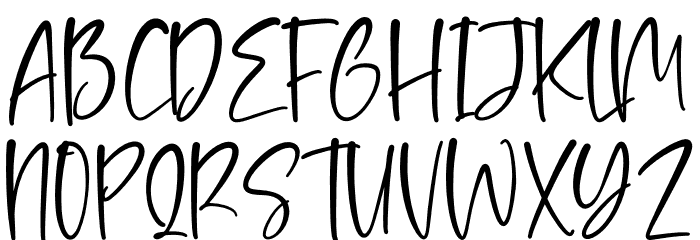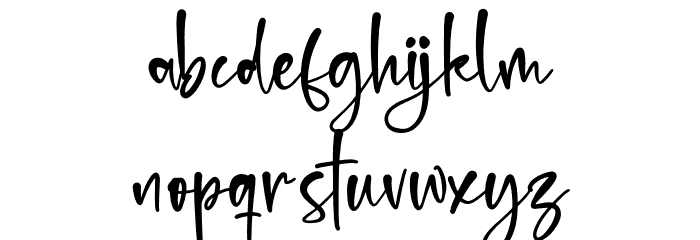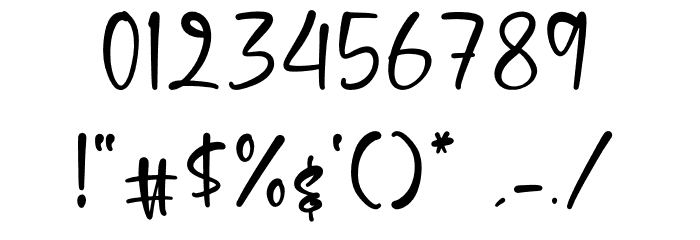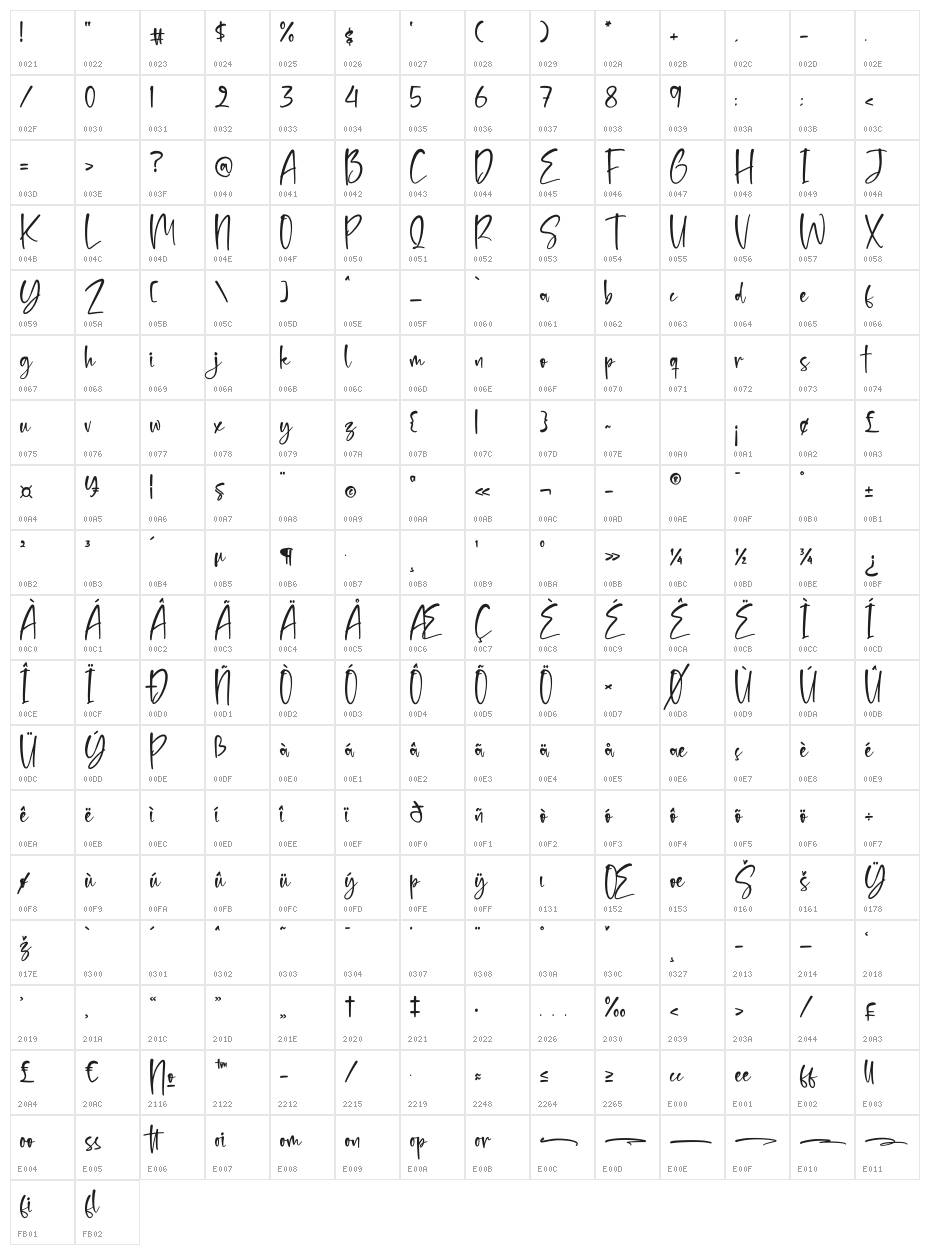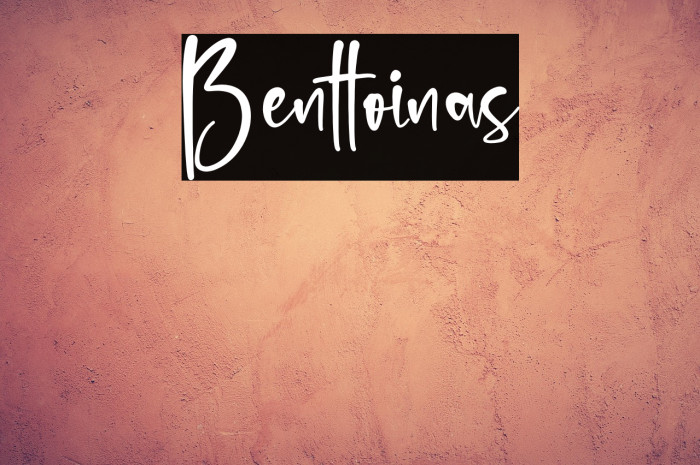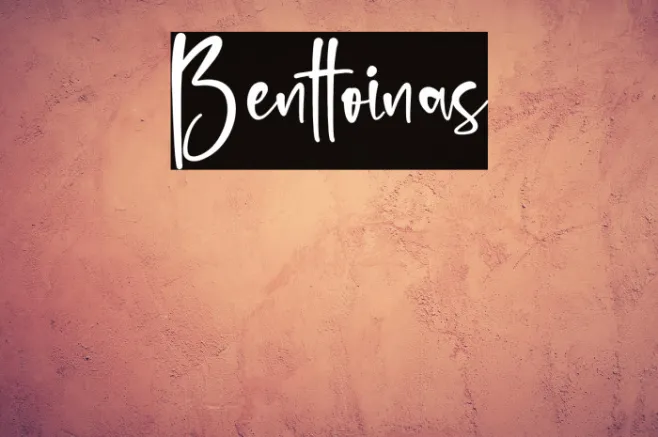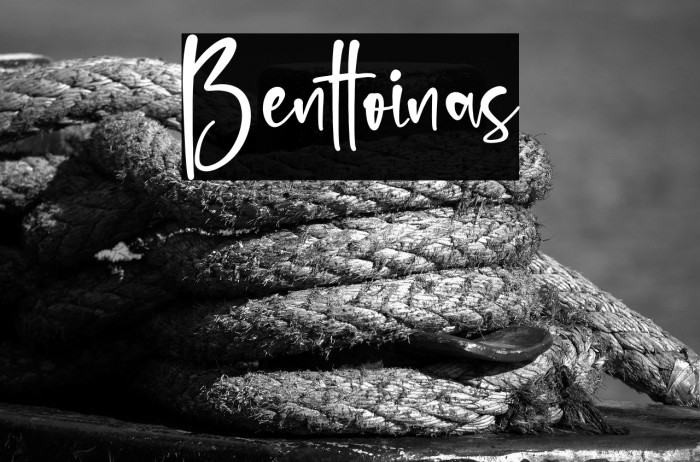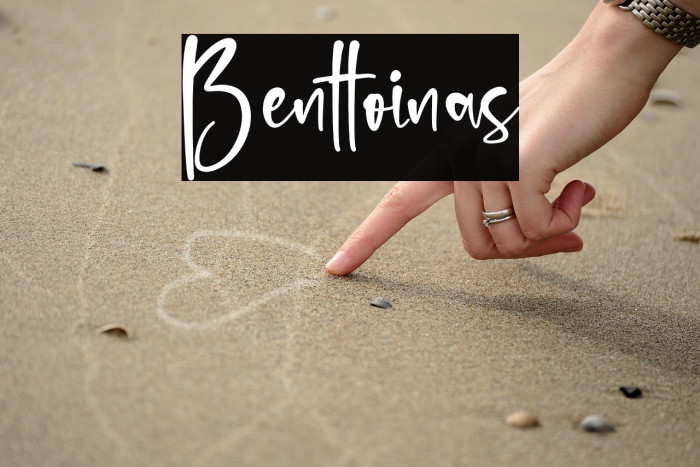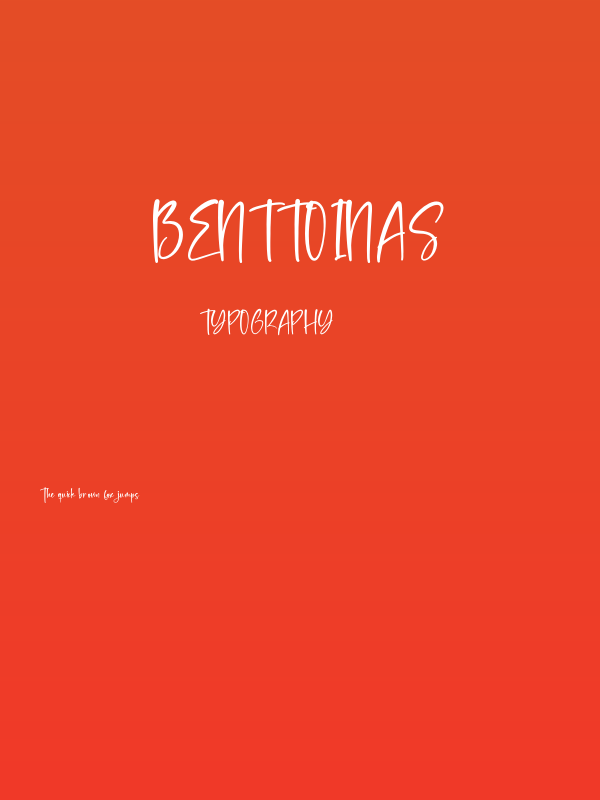
Benttoinas Font
This font features a playful and energetic handwritten style, characterized by its fluid and dynamic strokes. The letters are slightly slanted, giving a casual and informal appearance. The uppercase and lowercase letters maintain a consistent style, with a natural flow that mimics authentic handwriting. The numbers and special characters are crafted with the same lively touch, ensuring a cohesive look across all elements. This font's unique charm makes it suitable for projects that require a personal and approachable feel.
A playful and energetic handwritten font with fluid strokes.
- Proposed Projects: Ideal for greeting cards, invitations, personal branding, and social media graphics.
- Overall Style: Casual
- Use Case: Headlines, Logos, Invitations